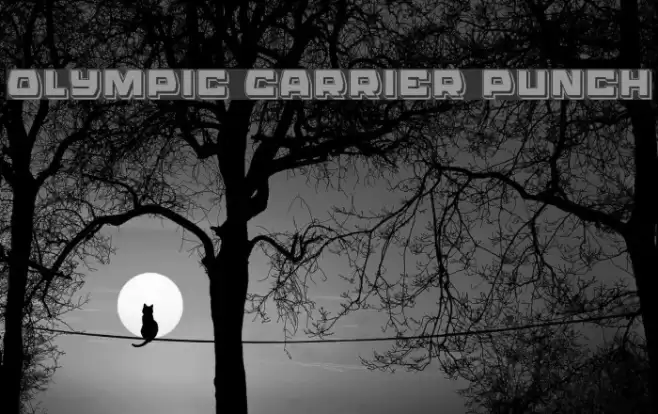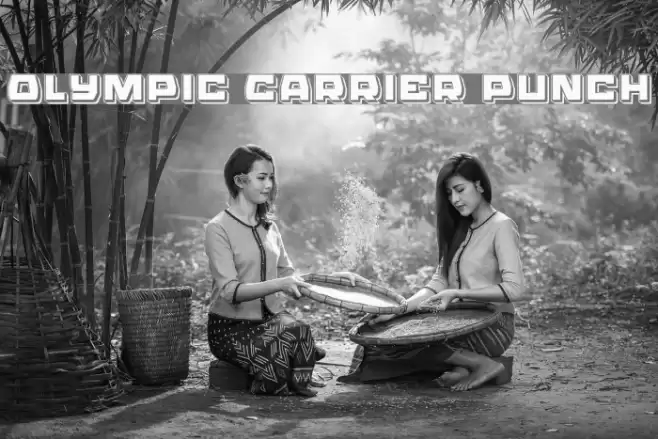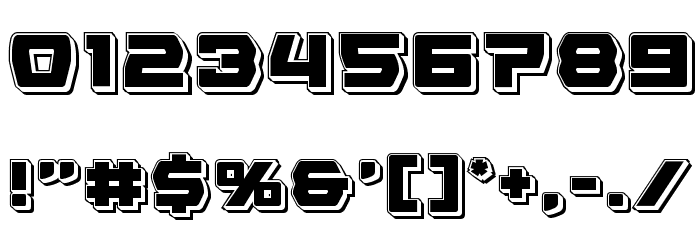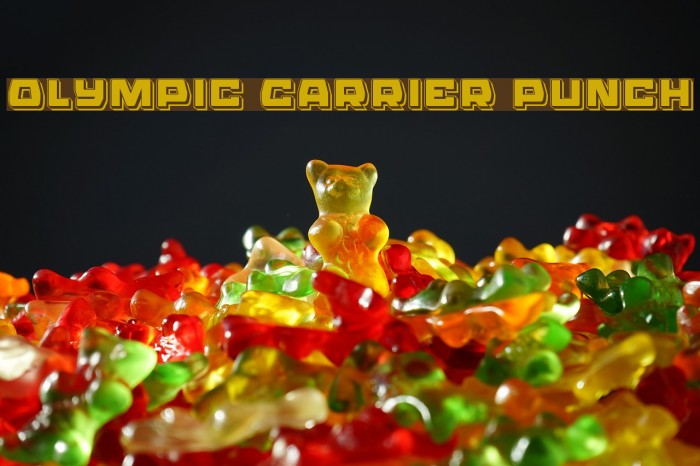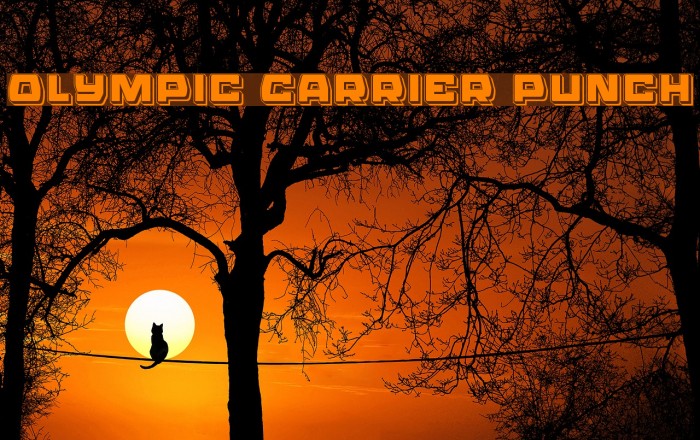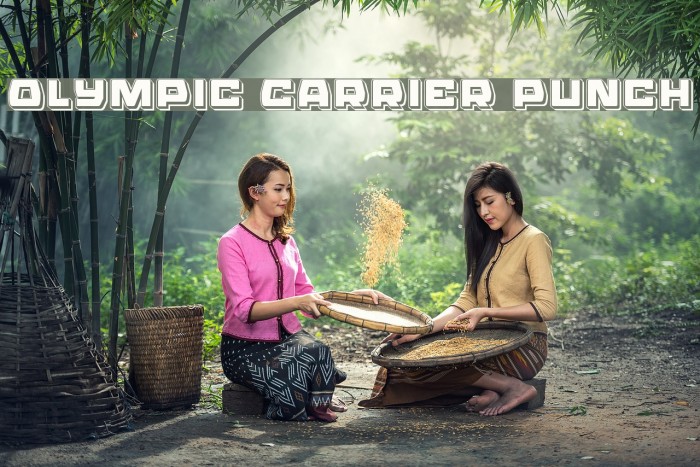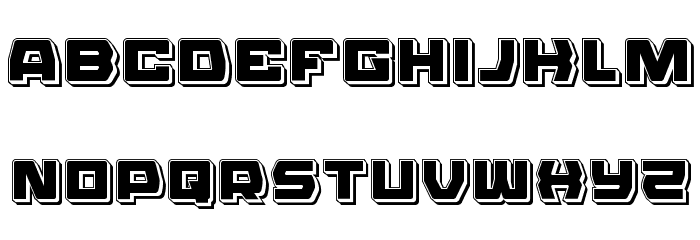
Olympic Carrier Punch Font
Olympic Carrier Punch Description
This font features a bold, geometric style with a strong, three-dimensional effect. The characters are outlined with a thick black border, giving them a striking, impactful appearance. The interior of each letter is filled with a solid color, enhancing the boldness and readability. The design is consistent across uppercase, lowercase, numerals, and special characters, maintaining a uniform look. The font's style is reminiscent of industrial or futuristic themes, making it suitable for projects that require a modern and dynamic aesthetic.
A bold, geometric font with a strong 3D effect and thick outlines from Sci-fi fonts.
- Proposed Projects: Ideal for posters, logos, video game graphics, and any design needing a bold, futuristic look.